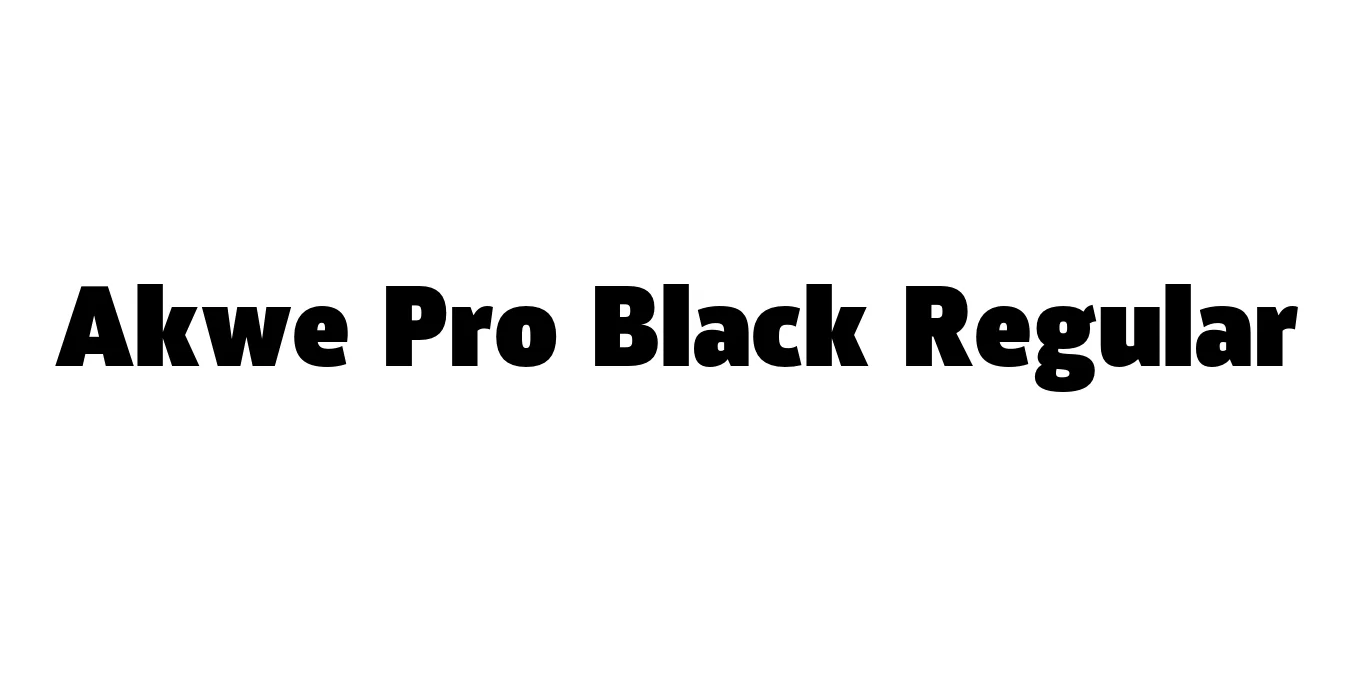
Akwe Pro Black Regular
Designed by Szymon Szelecki
Akwe Pro Black Regular is a contemporary sans-serif typeface designed by Szymon Szelecki of the Borutta Group. This specific weight offers a powerful, high-contrast presence that maintains clarity through its geometric construction and humanist influences. It was engineered to provide professional designers with a versatile tool that balances modern aesthetics with functional legibility, making it a staple for high-impact visual communication.
The Akwe Pro family is renowned for its extensive OpenType features and broad language support, allowing for seamless use across international markets. The Black Regular variant is particularly optimized for display purposes, where its heavy strokes and tight apertures create a rhythmic and authoritative feel. Whether used in digital interfaces or print media, this font delivers a sophisticated and polished look that elevates the overall design quality.
Akwe Pro Black Regular Best Uses
Perfect for creating bold, memorable logos and corporate identity systems.
Highly effective for billboards, posters, and attention-grabbing headlines.
Ideal for hero sections, large headers, and landing page call-to-actions.
Suitable for magazine mastheads and dramatic display typography in layouts.